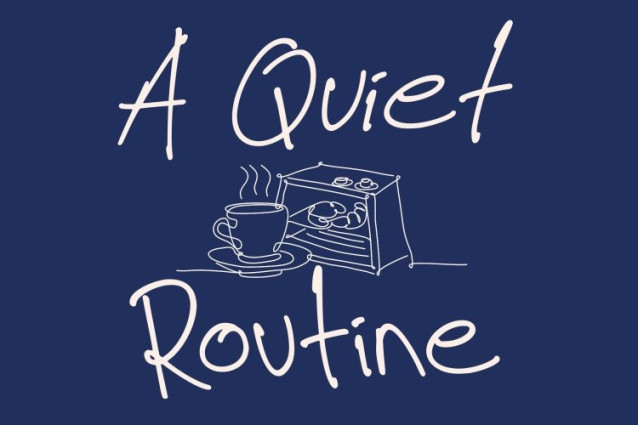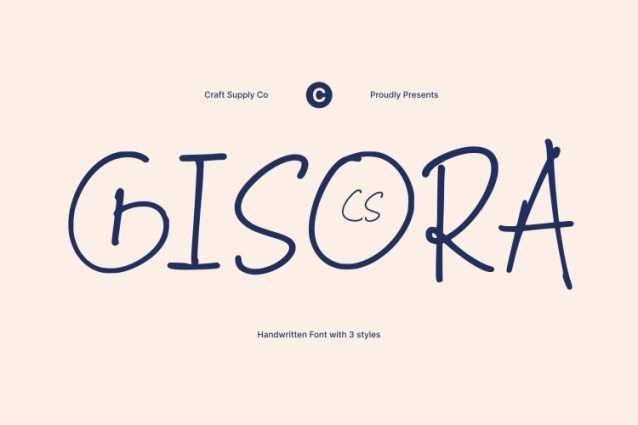
CS Gisora Font
CS Gisora Font – This is a handwriting-inspired font designed to capture the natural flow and warmth of real pen strokes. Its authentic style brings personality and character to any design, combining modern aesthetics with stylistic elegance for a truly engaging typographic experience.
Warm and Expressive Letterforms
Each character in this font is crafted to feel lively and personal. The fluid strokes and balanced proportions create a sense of movement and rhythm, making your text feel approachable and dynamic. This expressive quality adds warmth and friendliness, perfect for projects that need a personal touch.
Stylish and Aesthetic for Versatile Use
This font blends modern sophistication with handcrafted charm. Its aesthetic design makes it suitable for a wide variety of applications, including invitations, branding, quotes, and editorial projects. The font adds a unique stylistic flair without sacrificing readability or elegance.
Perfect for Invitations, Branding, and Creative Projects
Whether designing personal invitations, crafting distinctive branding, or creating inspiring quotes, this font elevates your work with its warm, modern, and stylistic appeal. Its authentic handwritten style ensures your designs communicate personality, creativity, and a professional yet approachable feel.